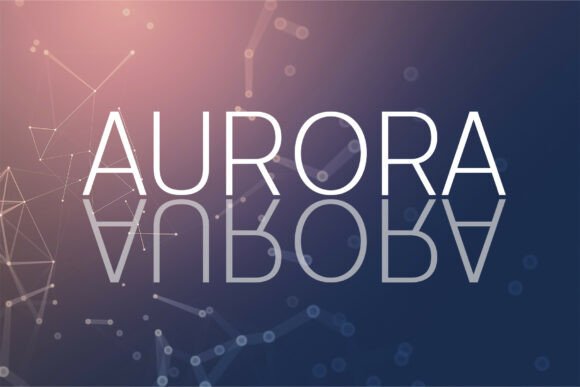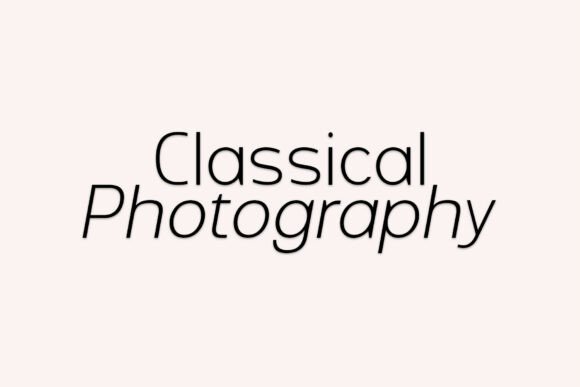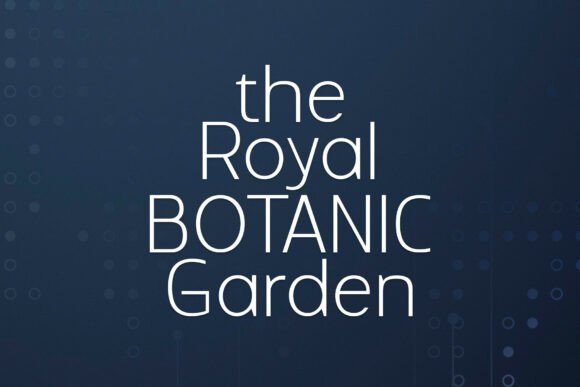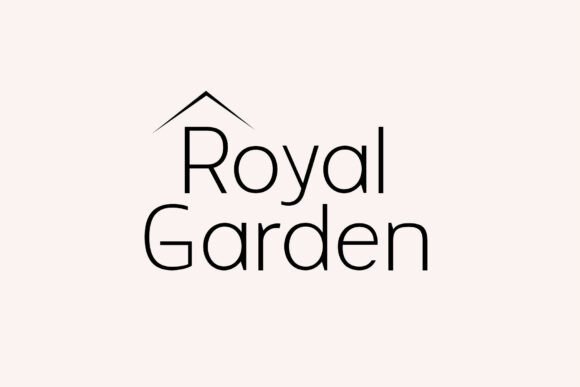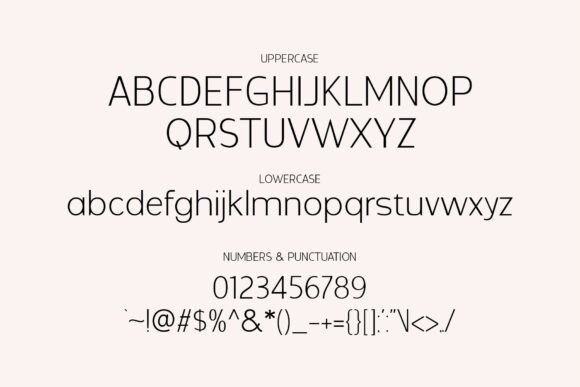
Introduction to Reback Font
Introduce Reback – A Modern Font with Strong and Elegant Character.
Meet Reback, a modern sans serif font that combines visual power with a touch of elegant minimalism Made for those who want to stand out, Reback is designed to give a professional, bold, and characterful impression, without losing its flexibility.